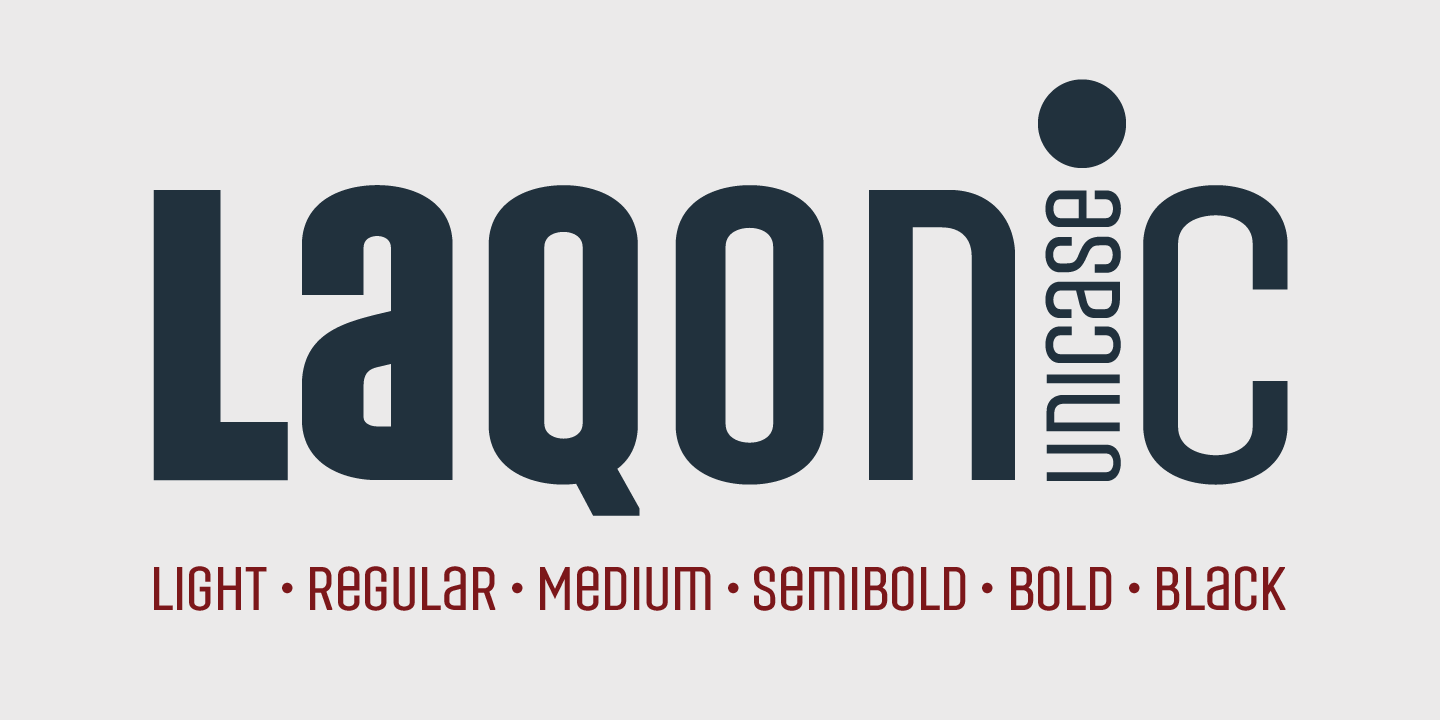
Laqonic 4F Font is an excellent choice for projects that demand a sharp, modern, and high-impact aesthetic. It's perfectly suited for futuristic branding, technology-related websites, gaming interfaces, architectural presentations, and any design where a strong, contemporary, and somewhat geometric feel is desired. Imagine it gracing the title screen of a cutting-edge video game, providing clear and stylish text for a tech company's marketing materials, or adding a sleek, structured look to an innovative product's packaging. Its precise lines and distinct character shapes ensure your message is conveyed with both authority and a forward-thinking sensibility.
What makes Laqonic 4F Font so exciting is its unique blend of industrial strength and refined precision. It offers a clean, unadorned appearance that speaks to efficiency and modern engineering, yet it maintains an intriguing visual appeal that sets it apart from more generic sans-serifs. This font isn't just about functionality; it’s about making a bold, confident statement that reflects innovation and cutting-edge design. It's the ideal tool for designers who want their work to feel contemporary, decisive, and visually impactful.
The Laqonic 4F Font family typically provides a range of weights and styles to offer comprehensive design flexibility. You can expect to find options from a light or thin weight for subtle elegance, through a regular weight for general use, to a bold or even ultra-bold weight for maximum emphasis. These variations allow for strong typographic hierarchies and ensure that whether you need to convey technical specifications with clarity or create a striking headline, the Laqonic 4F Font Free Download provides the foundational versatility to achieve a cohesive and modern design.